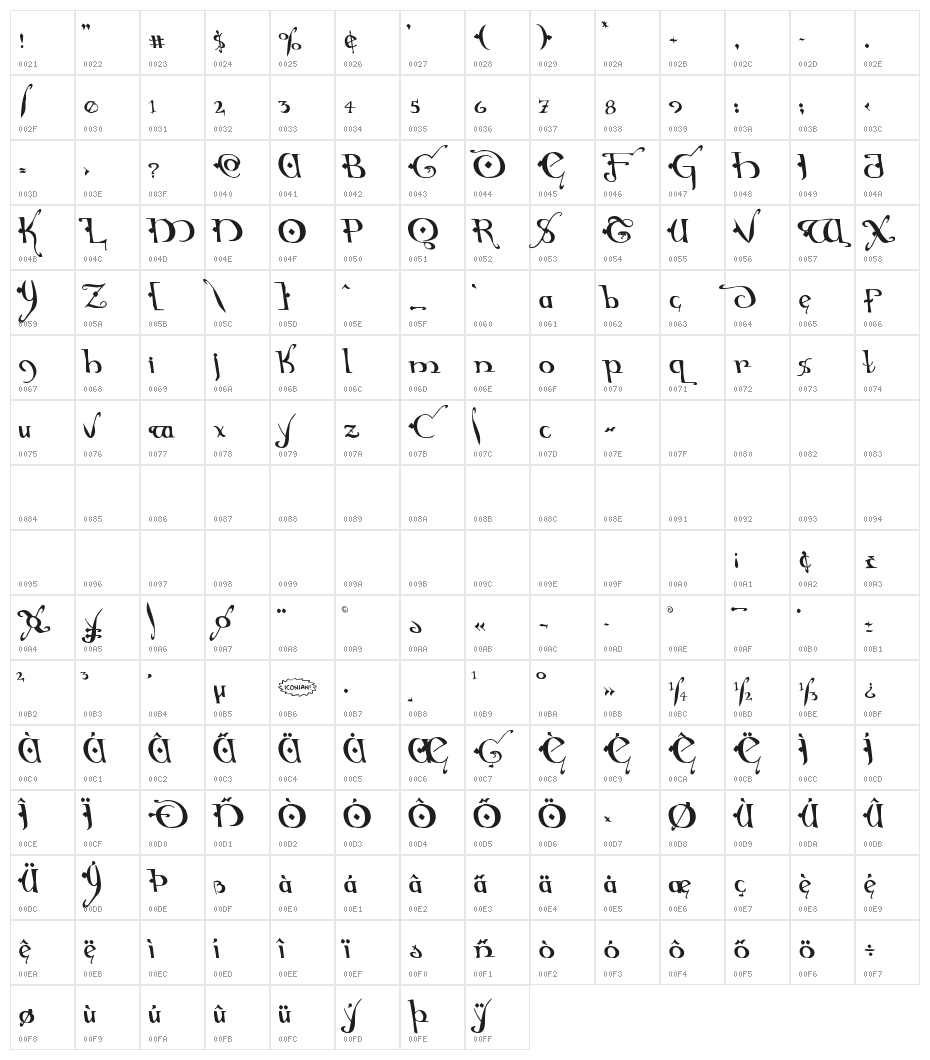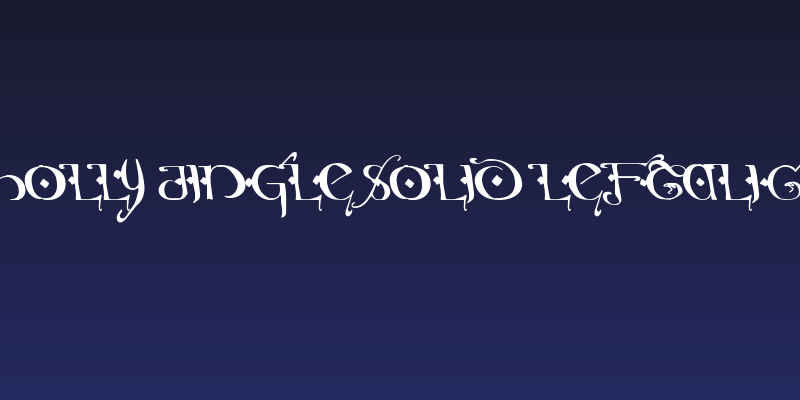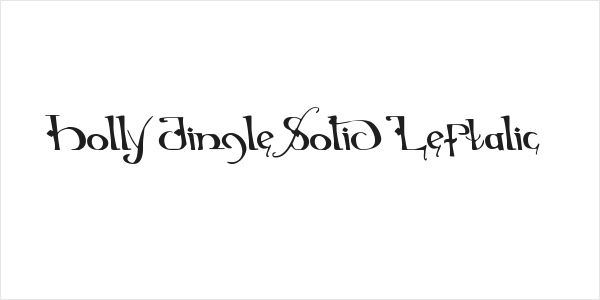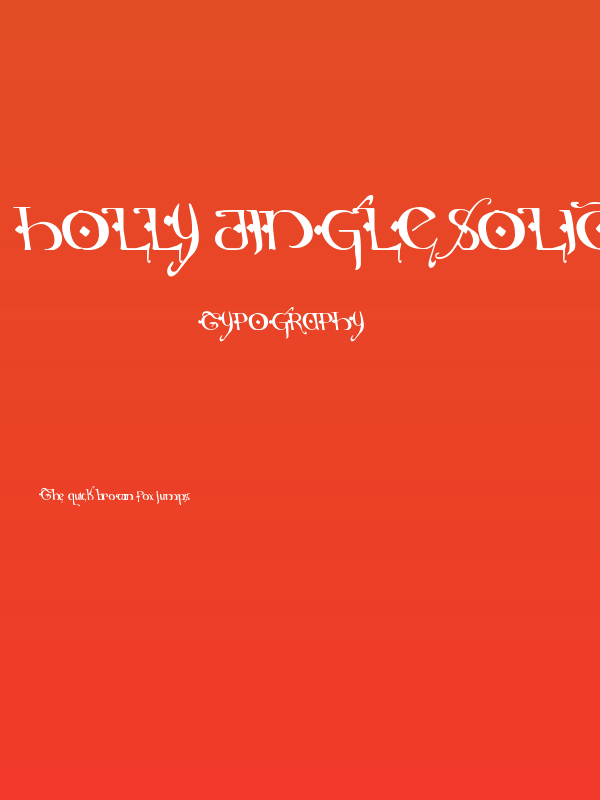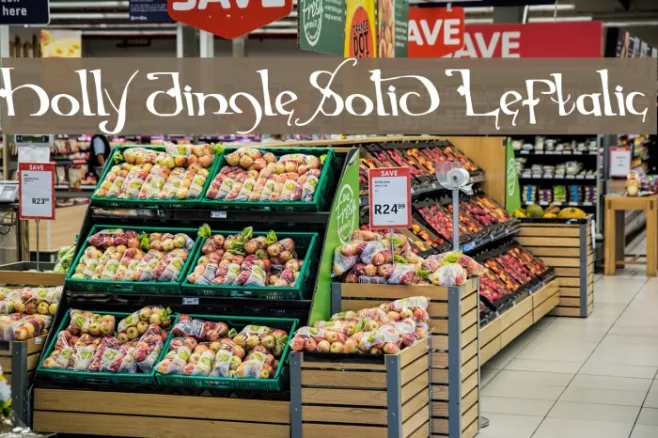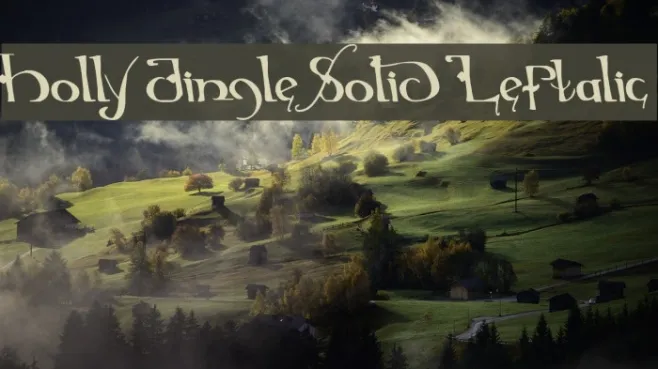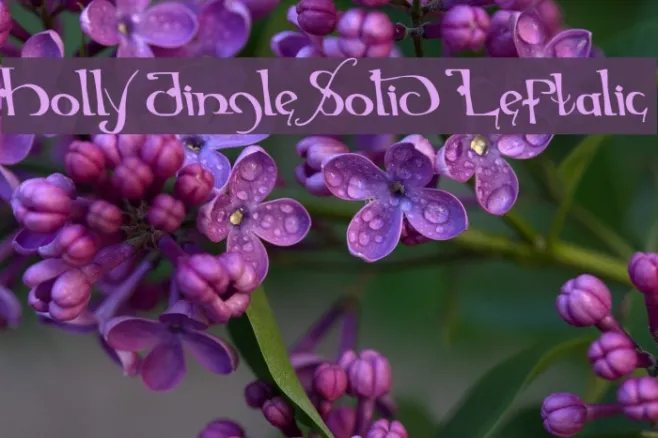
Holly Jingle Solid Leftalic Font
Holly Jingle Solid Leftalic Description
This font features a whimsical and decorative style, characterized by its playful curves and intricate details. Each letter is adorned with unique flourishes that give it a festive and ornate appearance. The uppercase letters are particularly elaborate, with swirling extensions and pointed serifs that add to the font's charm. The lowercase letters maintain a similar style, though slightly more subdued, ensuring readability while retaining the decorative essence. Numbers and special characters are equally stylized, making this font ideal for creative and festive designs. The overall look is reminiscent of holiday themes, with a touch of elegance and fantasy.